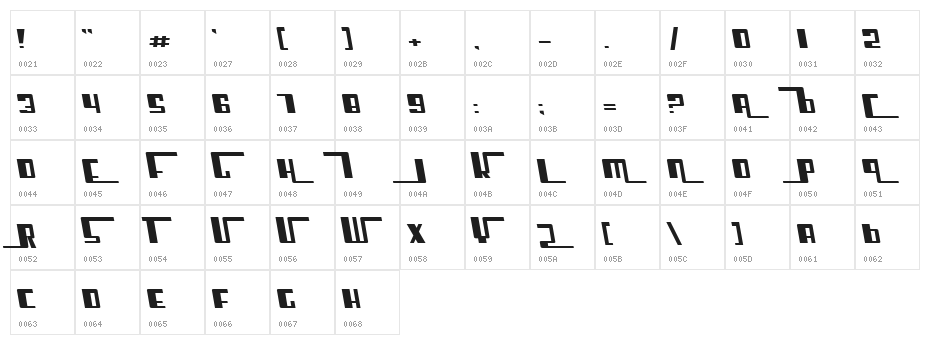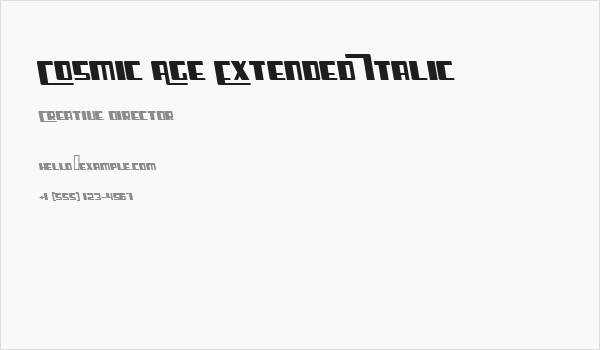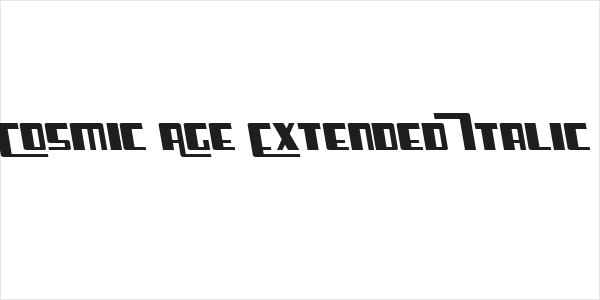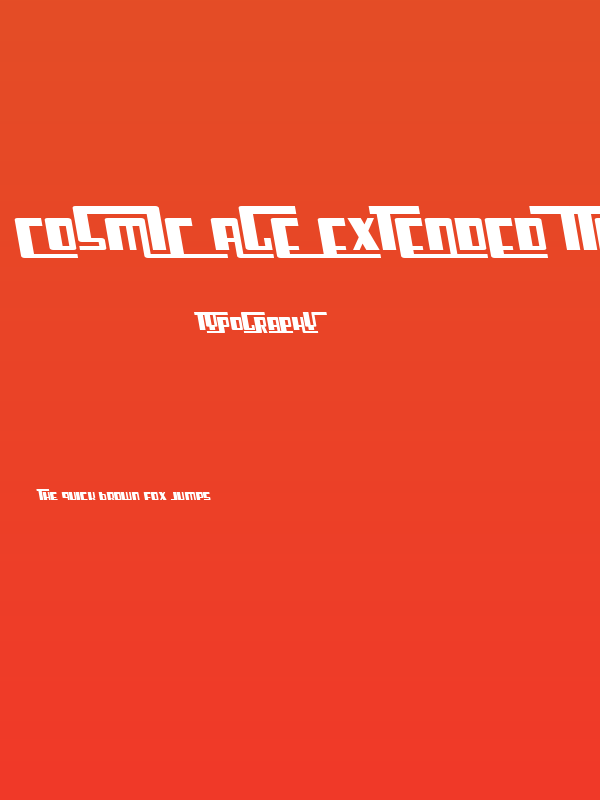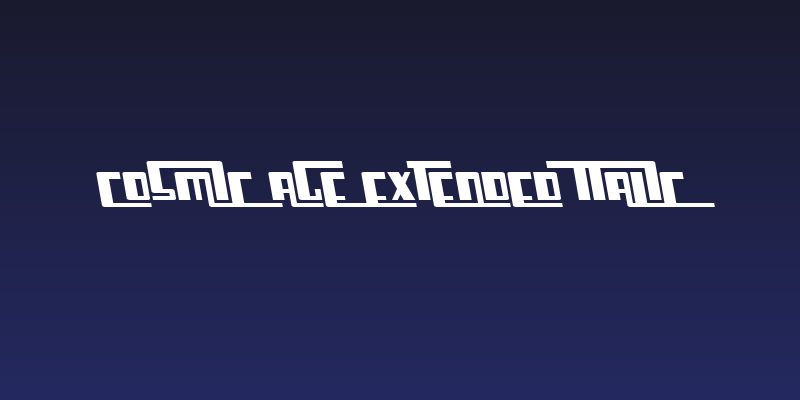
Cosmic Age Extended Italic Font
Cosmic Age Extended Italic Description
This font features a futuristic and bold design, characterized by its extended and italicized letterforms. The characters have a distinct geometric style with sharp angles and a consistent stroke width, giving it a modern and technological appearance. The uppercase and lowercase letters maintain a uniform height, enhancing readability while maintaining a unique aesthetic. The numerals and special characters are designed to complement the overall style, making it suitable for digital and sci-fi themed projects. The font's design is both striking and functional, ideal for capturing attention in a variety of contexts.
| Proposed Projects | Ideal for sci-fi themed designs, technology branding, video game interfaces, and futuristic posters. |